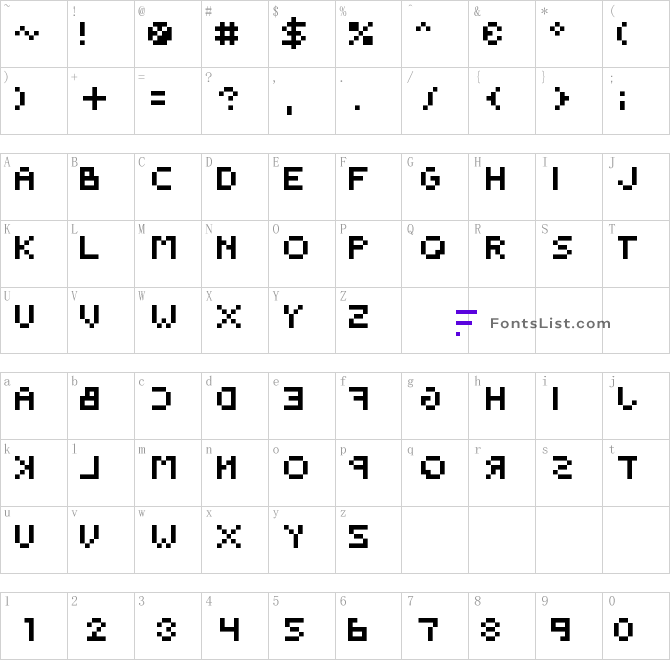
BackwardsPixelized-Regular.ttf is a very beautiful artistic font, BackwardsPixelized-Regular.ttf is widely used in the design and printing of various books and pictures,BackwardsPixelized-Regular.ttf has a strong visual impact,BackwardsPixelized-Regular.ttf is a commonly used font in newspapers, magazines and books, and is used in posters, e-commerce Poster design, store design, logo design, font design and other fields.BackwardsPixelized-Regular.